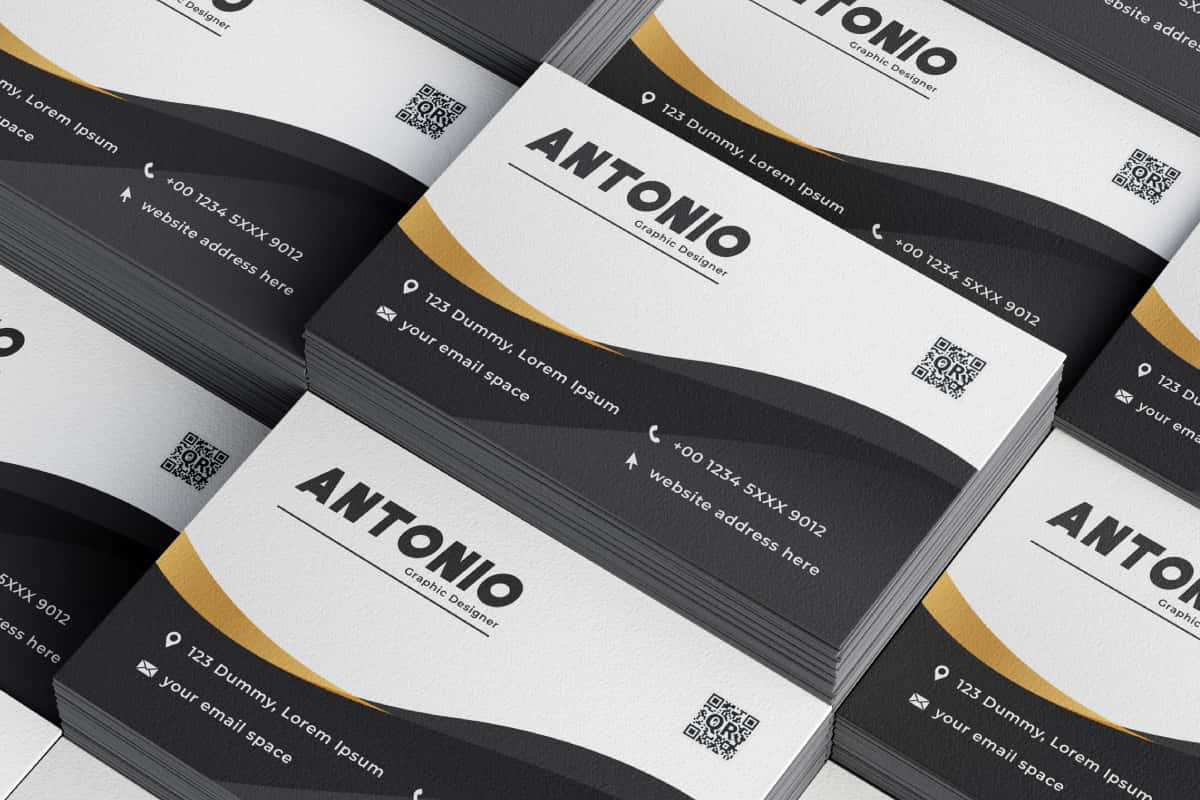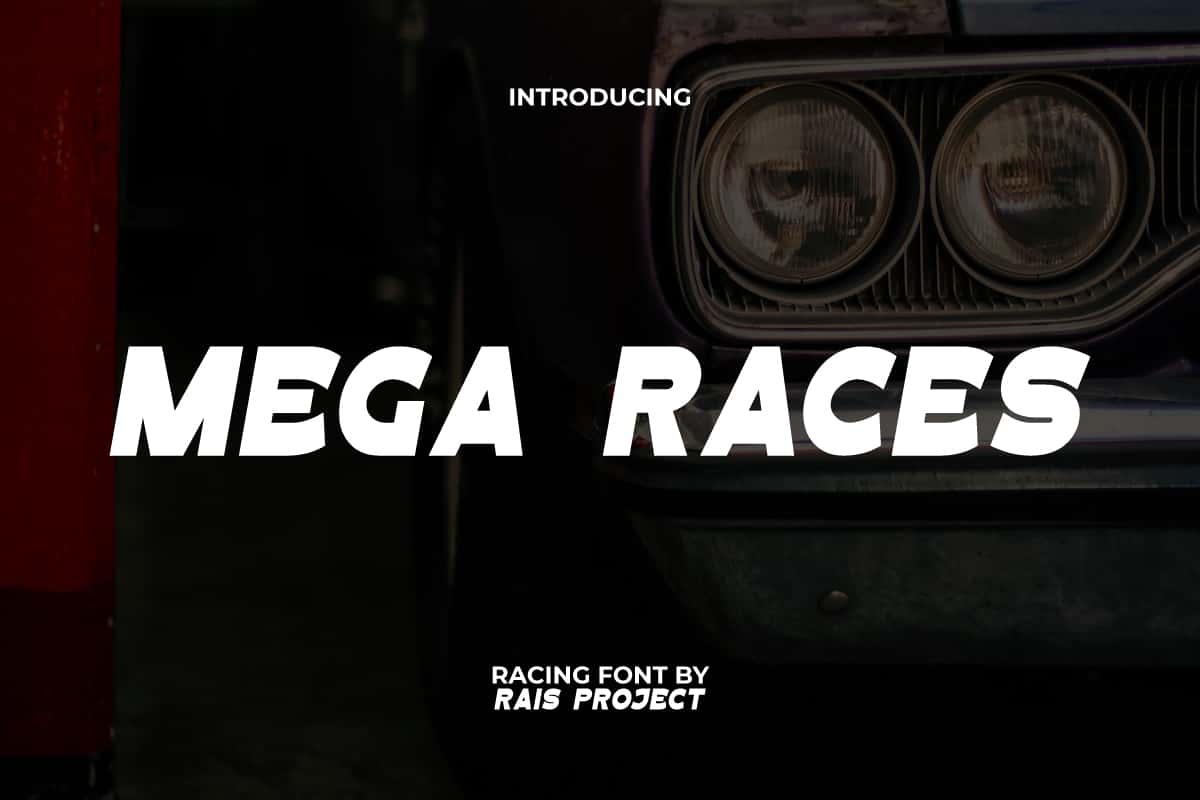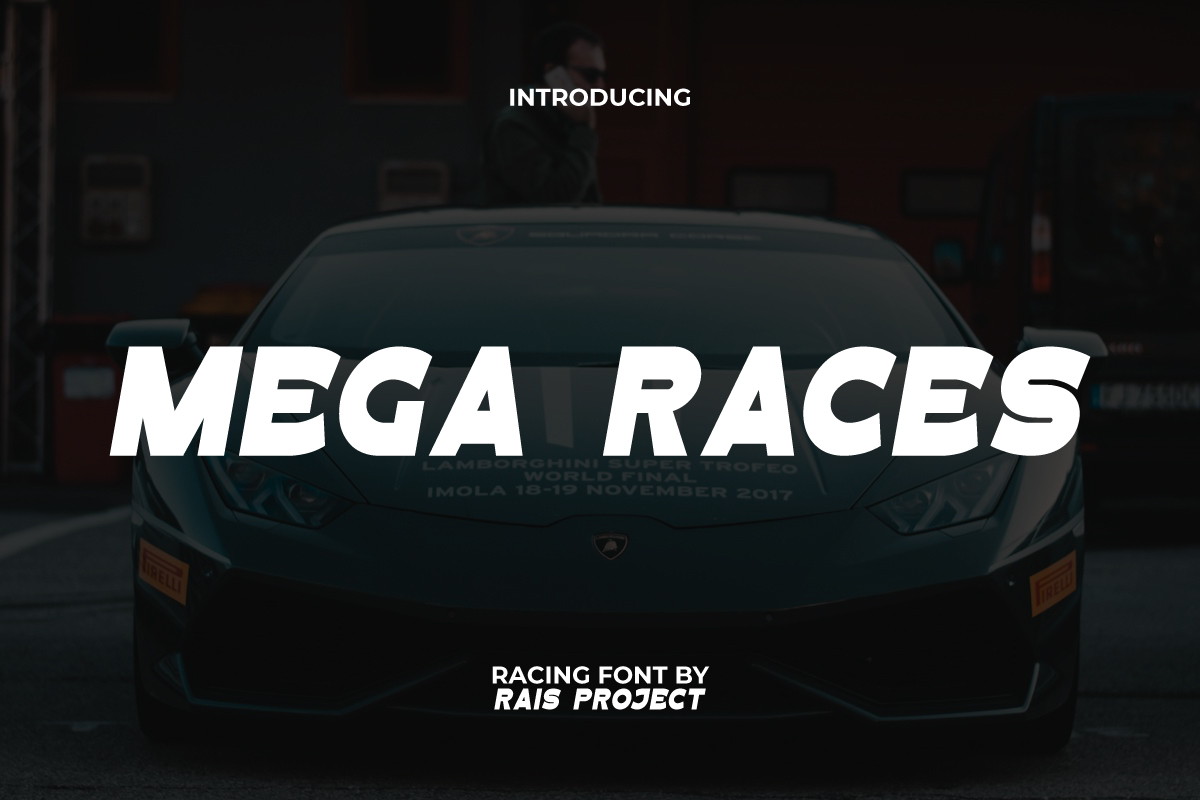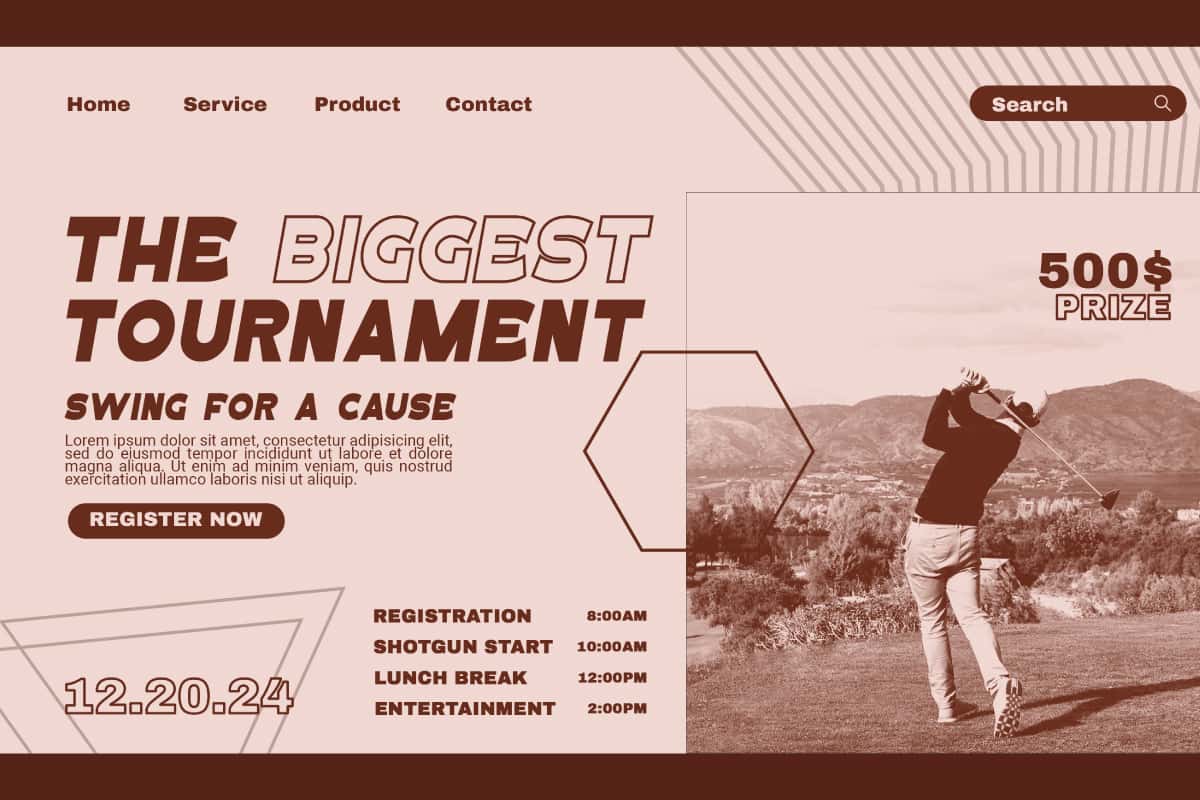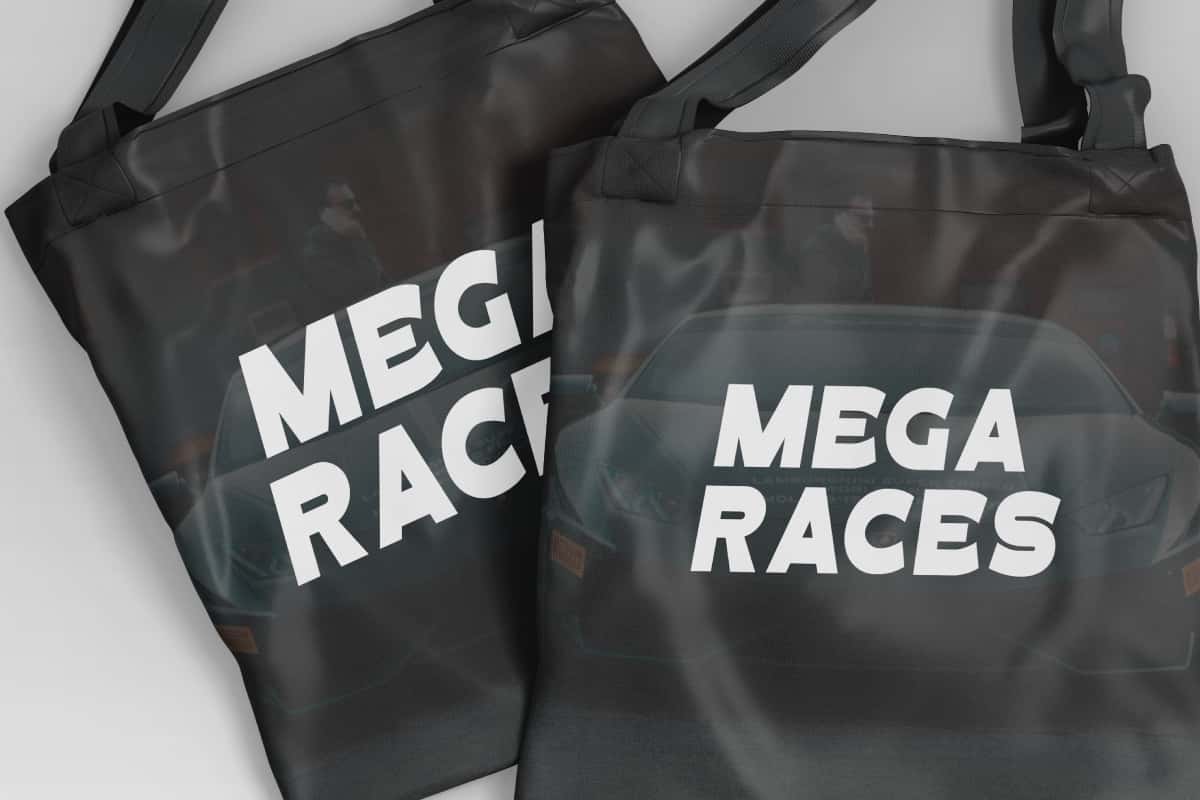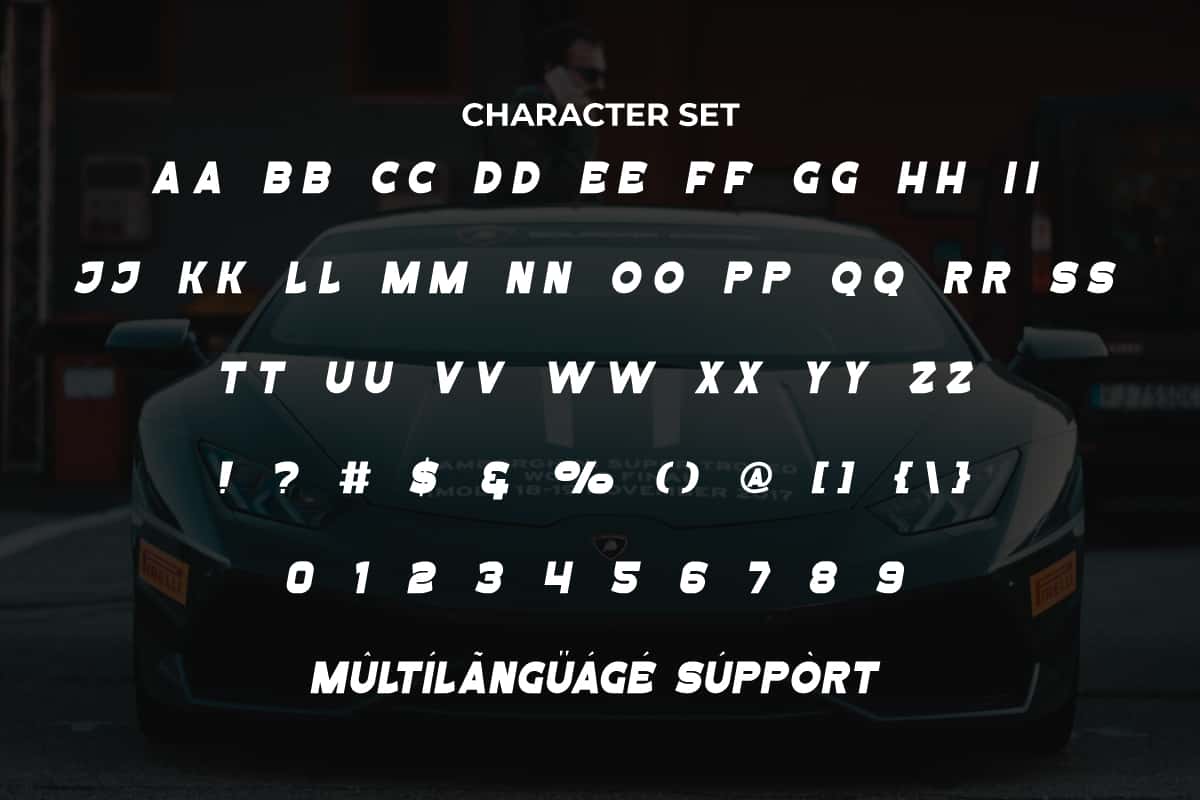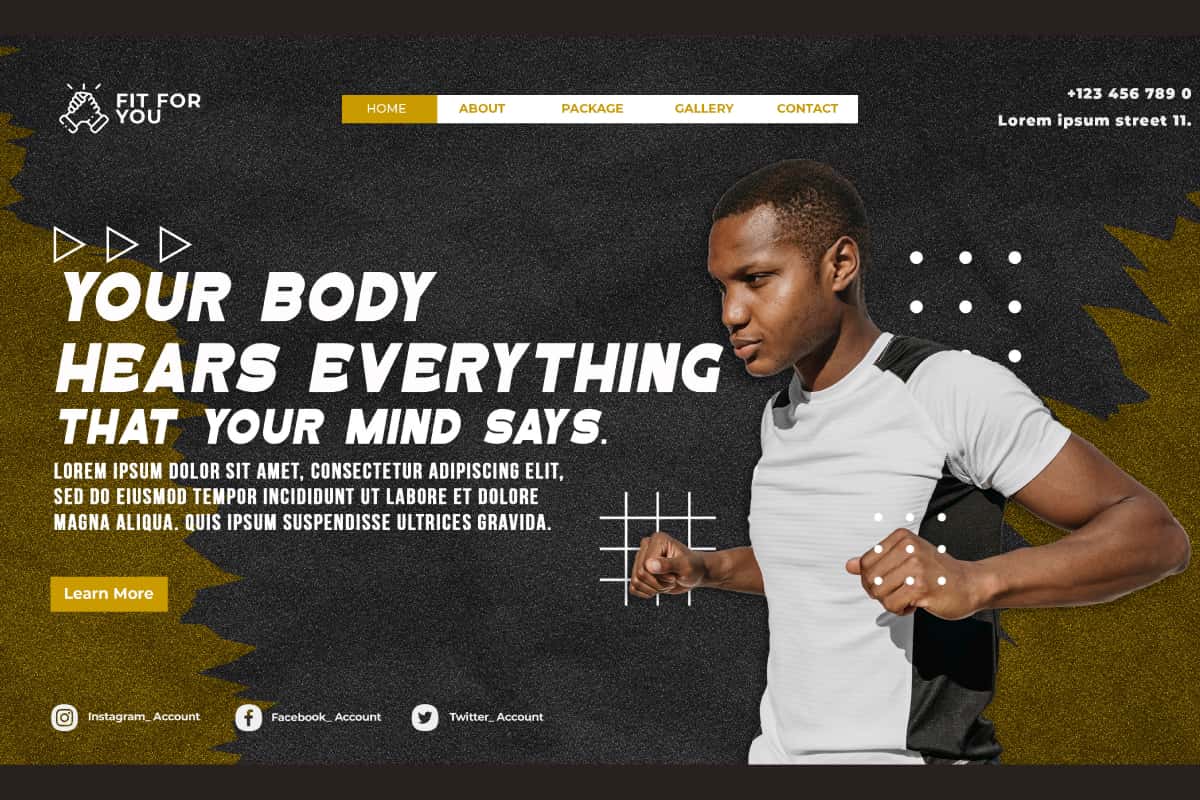
Mega Races Display Font
Mega Races Font is a racing font with a unique and bold concept to make your design different from the others!
Mega Races Font is a bold racing font to make your designs standout, by RaisProject. This font has a unique casual style that can make the design look more special. It will be great for custom design, poster, label, signage, stationery, product packaging, quotes, brand image, advertisement, invitation, marketing material, website page, and more!
Introducing Mega Races Display Font – a bold, dynamic, and high-energy typeface designed to capture the thrill of speed and competition. Inspired by racing aesthetics, Mega Races features sharp lines, strong curves, and a sleek futuristic style that makes it perfect for projects requiring power and excitement. From sports branding and event posters to gaming graphics, automotive campaigns, and digital content, this font delivers a striking look that commands attention.
Mega Races Display Font is built for designers, brands, and creatives who want to showcase strength and modern energy. Its bold letterforms are perfect for racing logos, esports branding, promotional materials, and merchandise. With high readability and a visually impactful design, Mega Races works seamlessly across both print and digital platforms, ensuring your projects stand out everywhere.
Mega Races Display Font includes a full set of ALL CAPS for Uppercase and Lowercase Letters, Numerals, and large range of Punctuation. This cool font will be suitable for various industries, such as sports, automotive, fashion, game, barber shop, cafe, event or festival, photography, printing, publishing, etc.